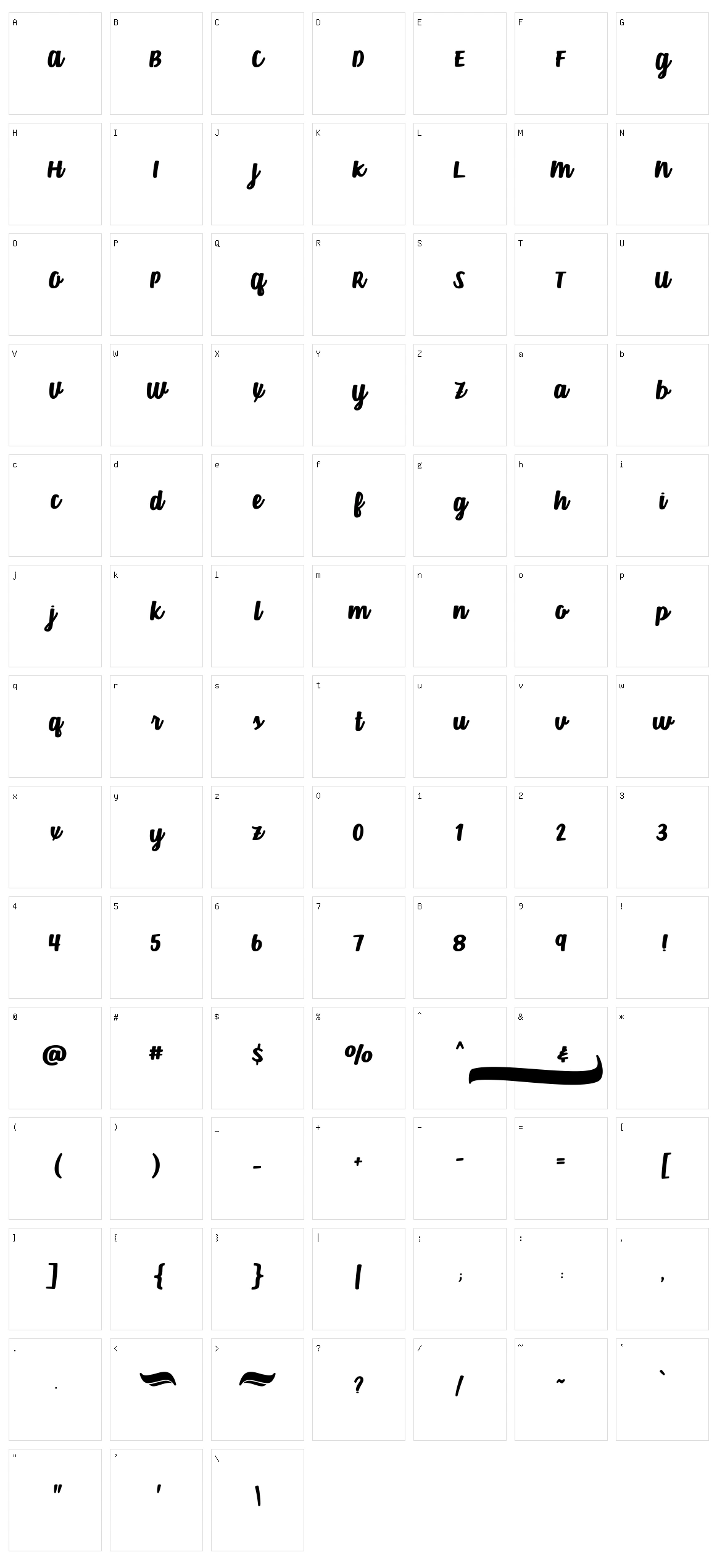
The free font Velvet Heart is carefully designed by Brittney Murphy Design, showcasing a thoughtful balance of creativity and usability and falls under the Old-School font style. When you download the ZIP file, it contains only 36.52 KB of font files, making it lightweight and quick to download. Please review the license details below to understand permitted usage and distribution rights. If license information is not available, we recommend using this font for personal projects only or contacting the author directly for commercial usage permissions.